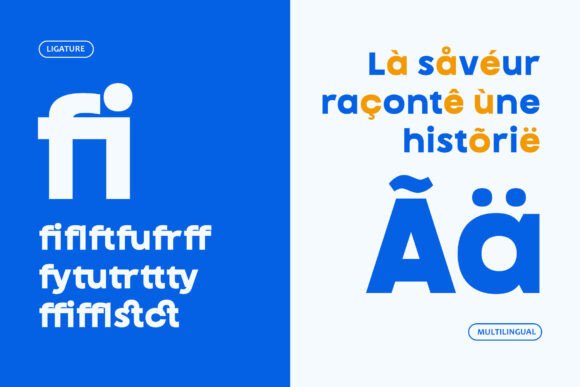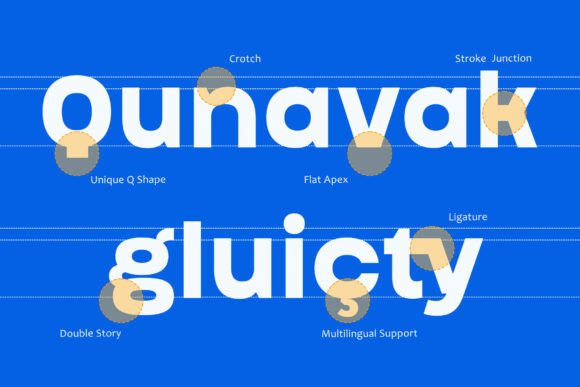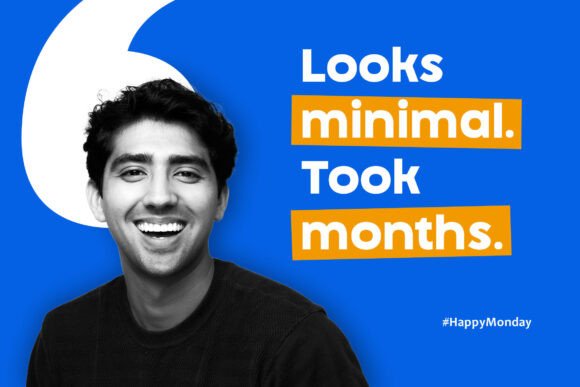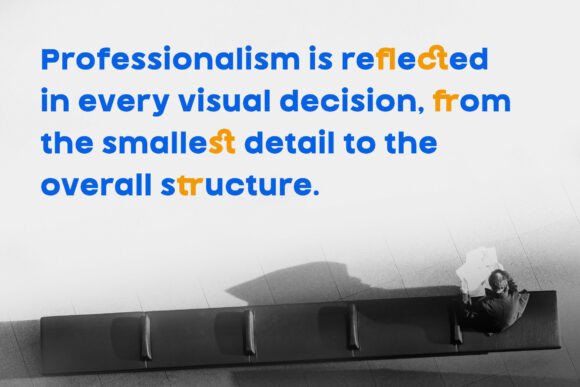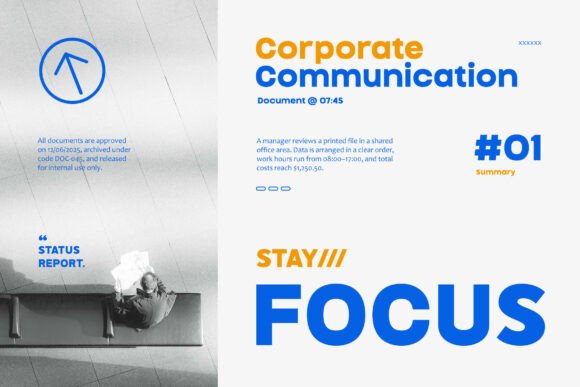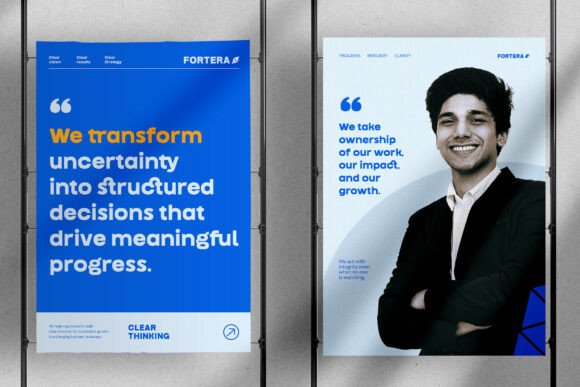
Unleash the Power of Modern Design with the Kagusto Font
As a designer, you’ve probably had that moment when you’re staring at a blank canvas, and suddenly, a brilliant idea strikes. The colors, the typography, the entire visual language comes together in perfect harmony. For many creatives, that moment is the spark that ignites a new project or reimagines a brand. If you’re looking for a tool to fuel your creativity and give your designs a bold, modern edge, look no further than the Kagusto Font.
This modern sans serif font is specifically designed for clean, strong, and professional visual communication. With its minimal yet confident character, the Kagusto Font is perfect for logos, branding, corporate identity, and more. Its bold structure and balanced proportions make it highly readable, while maintaining a contemporary and stylish look that’s sure to enhance brand recognition and visual impact.
Kagusto Font Key Features
- Font Family: Kagusto Font is a unique sans-serif font family designed to provide a clean and modern look.
- Character Set: Supports a wide range of languages, including Latin, Cyrillic, and Greek alphabets, making it suitable for multilingual designs.
- Resolution: Designed for high-resolution displays, Kagusto Font looks great at resolutions up to 300 DPI, ensuring crisp and clear text.
- Font Size: Available in multiple weights, from light to bold, allowing designers to choose the perfect font size for their project.
- Unique Characteristics: Kagusto Font features a distinctive x-height and a subtle rounded corner on the terminals, giving it a friendly and approachable feel.
Kagusto Font Review
As a designer, I’ve had the chance to work with Kagusto Font, and I must say it’s an interesting typeface. Here’s my honest review.
- ✨ Unique design: Kagusto Font has a distinct, quirky feel that sets it apart from more common fonts.
- ✨ Great for headlines: The font’s bold, eye-catching style makes it perfect for grabbing attention in headlines and titles.
- ✨ High legibility: Despite its unusual design, Kagusto Font is surprisingly easy to read, especially in larger sizes.
- ⚠️ Limited versatility: While Kagusto Font is great for headlines, it may not be the best choice for body text or large blocks of text.
- ⚠️ May not be suitable for all audiences: The font’s quirky design may not appeal to everyone, and could potentially be distracting or annoying in certain contexts.
- ⚠️ Limited font weights: Kagusto Font is available in only a few weights, which may limit its versatility in certain design situations.
Overall impression:
Kagusto Font is a unique and attention-grabbing typeface that’s perfect for making a statement in headlines and titles. However, its limited versatility and potential for distraction may make it less suitable for certain design projects. Overall, I’d recommend Kagusto Font for designers who want to add a bit of personality to their designs, but with caution and careful consideration of the project’s context and audience.
Tips for Getting the Most Out of Kagusto Font
Use Kagusto font for creative projects that require a unique and elegant touch, such as:
1. Invitations and event materials.
2. Branding and marketing materials.
3. Digital art and graphic design projects.
To get the most out of Kagusto font, experiment with different font sizes, colors, and combinations to achieve the desired effect.
Alternatives to Kagusto Font
The Great Vibes Font is a modern and elegant script font that is perfect for creating a luxurious and sophisticated look. It’s ideal for use in branding, advertising, and editorial design. Compared to Kagusto Font, Great Vibes Font has a more refined and delicate feel, making it suitable for high-end projects.